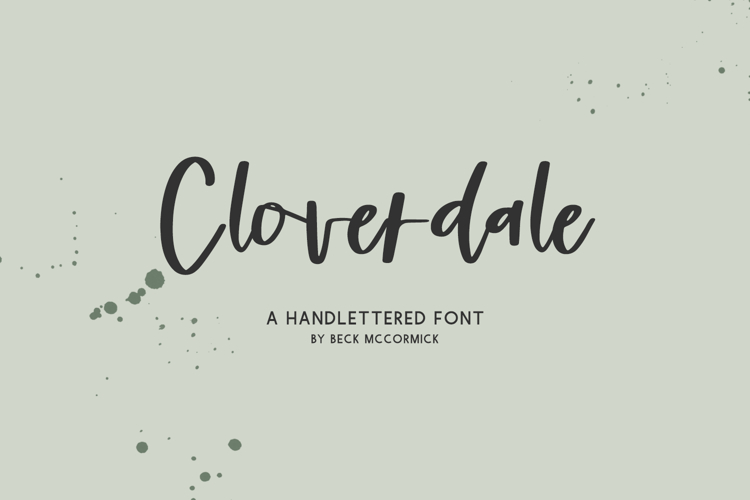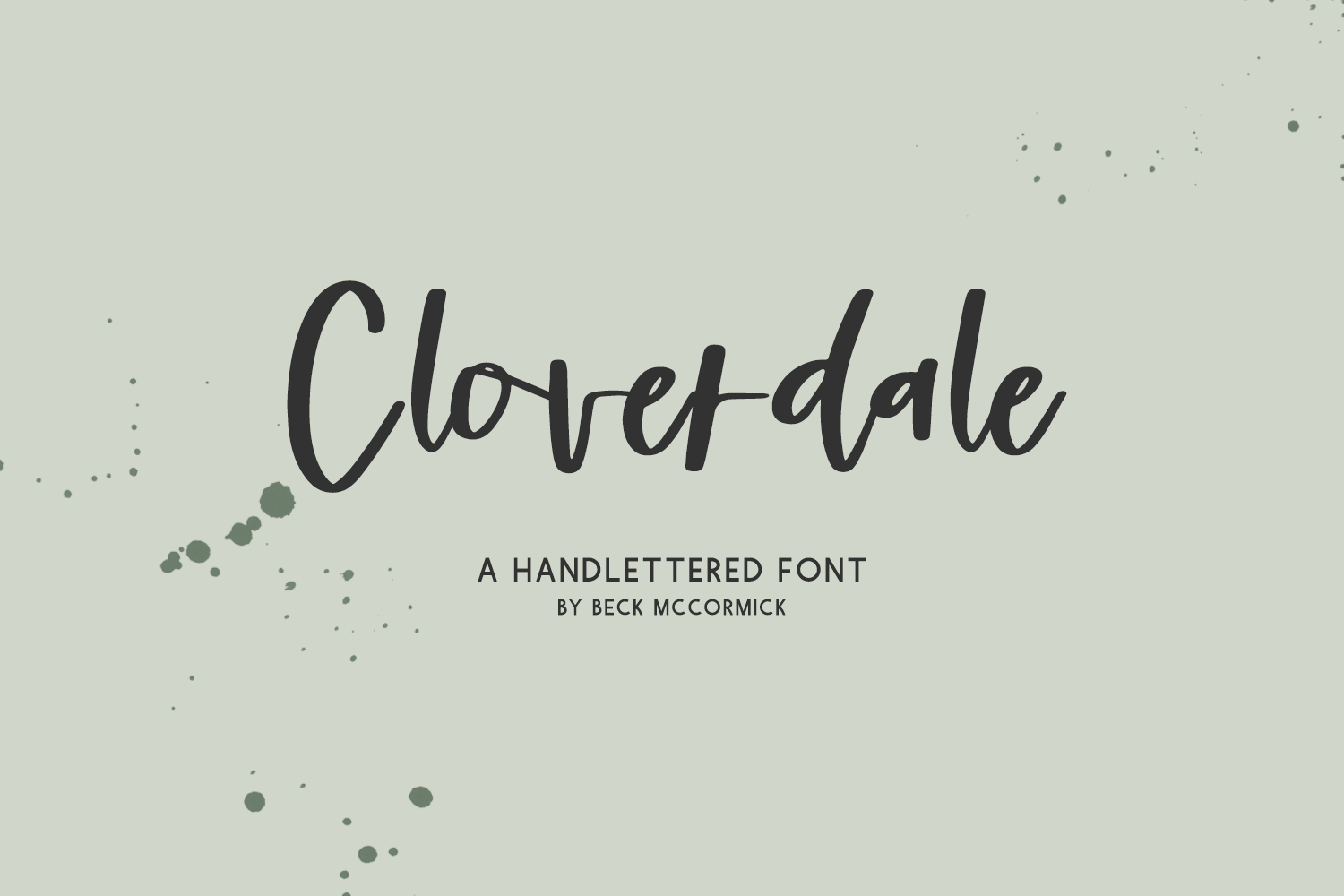
Cloverdale Script Font
Introducing Cloverdale, a handlettered modern calligraphy script. Cloverdale features common double letter ligatures to enhance the natural handwriting look.
- 11 ligatures - bb, dd, ff, gg, ll, mm, nn, oo, rr, ss, tt